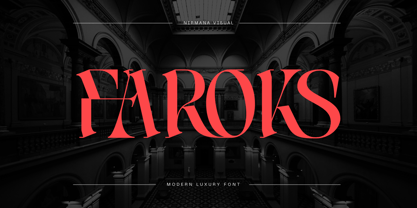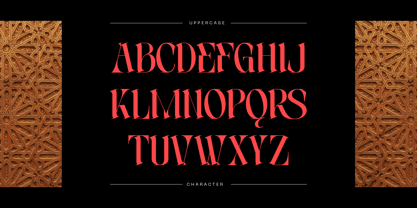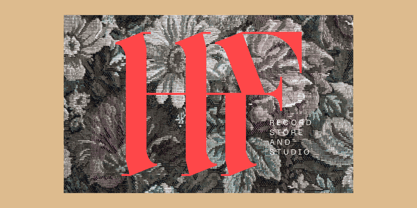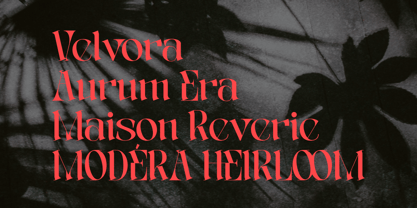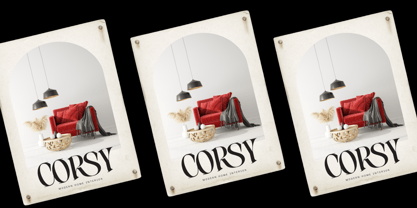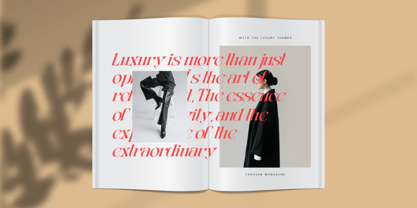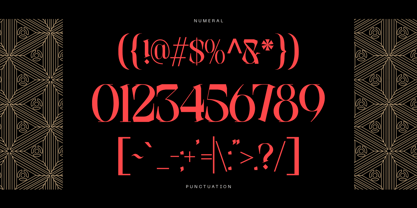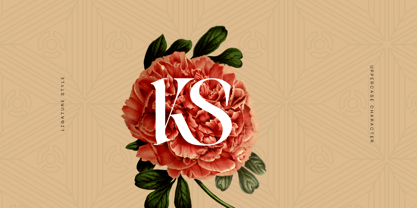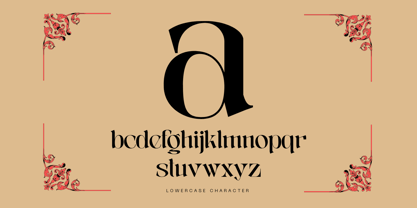
Faroks
The Faroks Font Family was designed by Sigit Dwipa and published by Nirmana Visual. Faroks contains 2 styles and family package options. More about this family
Faroks Modern is a luxurious serif display font designed for modern branding and high-end visuals. With its sleek, sharp serifs and balanced elegance, it brings a contemporary twist to classic typography. Available in both Regular and Italic styles, Faroks Modern is ideal for logos, editorial titles, fashion branding, and upscale packaging. Its refined curves and bold presence make it a standout choice for sophisticated, modern design.